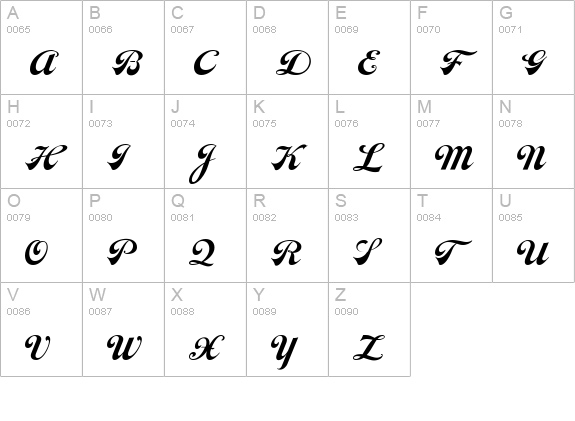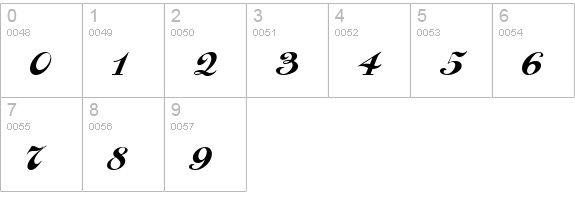
MoonshineScriptNF is a beautifully crafted and elegant font that exudes a sense of whimsy and charm. Its graceful curves and flowing lines give it a unique and stylish look that is sure to make any design stand out. Whether you're working on a wedding invitation, a branding project, or a poster design, MoonshineScriptNF is the perfect choice to add a touch of sophistication and creativity. What's even better is that MoonshineScriptNF is available for free download at FontsMarket.com. This means you can easily access this stunning font and use it in your projects without having to worry about any additional costs. With MoonshineScriptNF, you can bring your creative vision to life and create designs that truly shine.